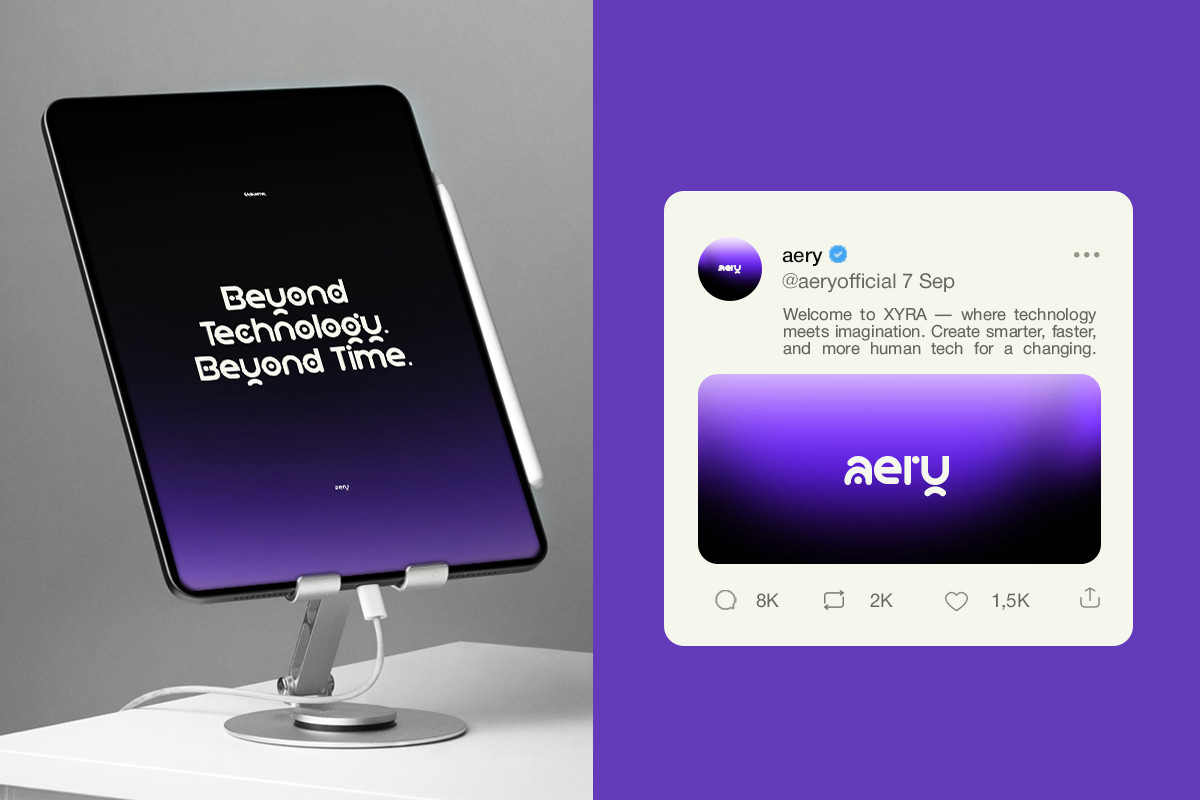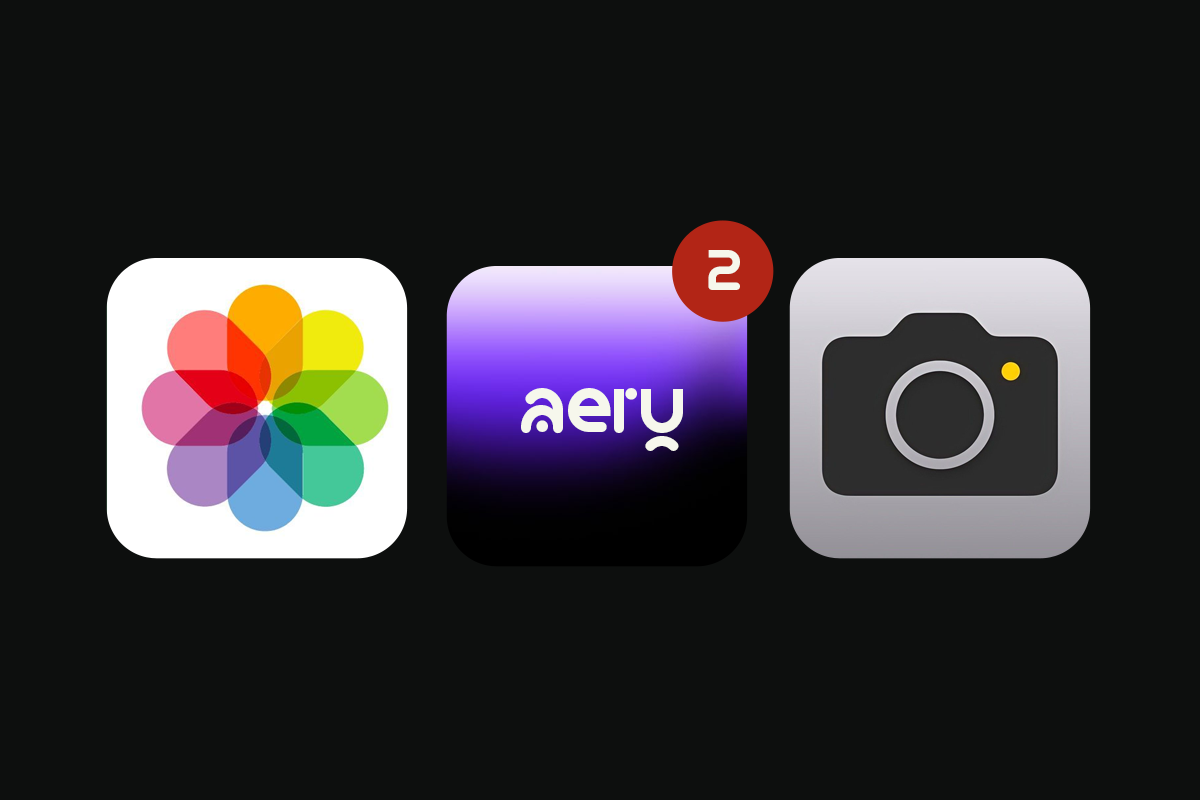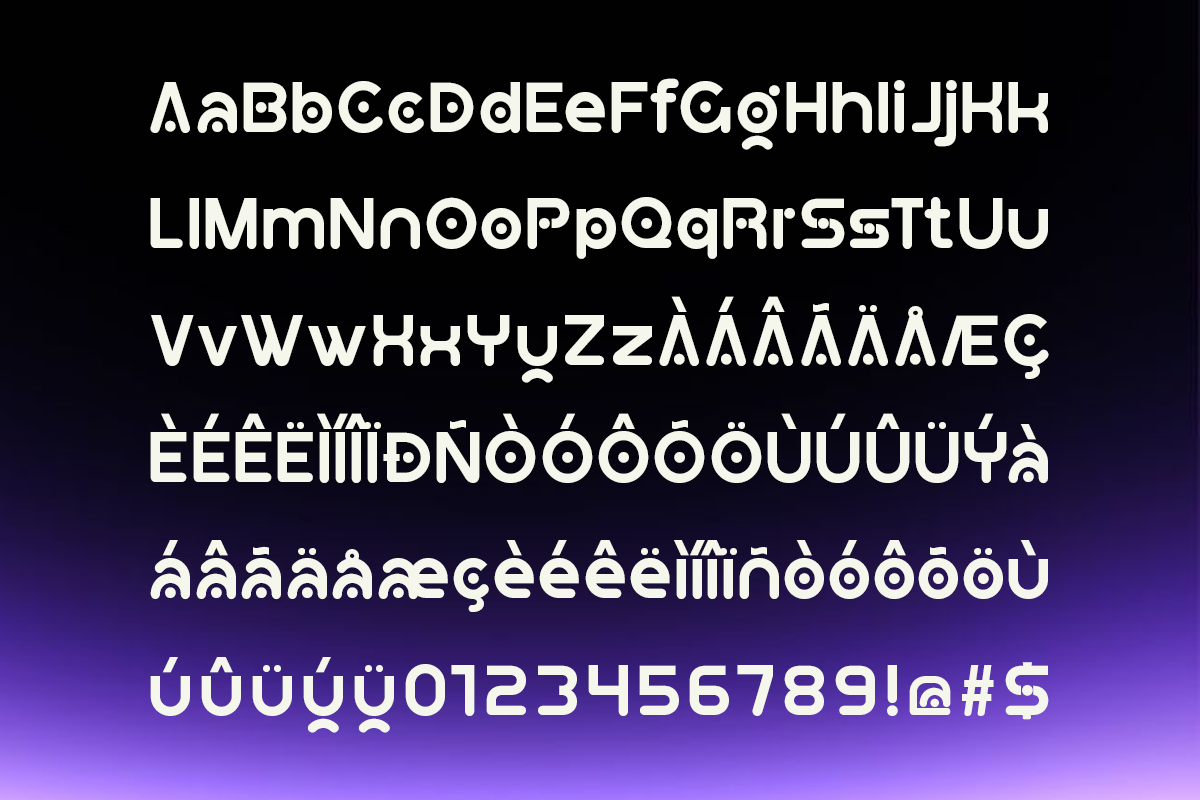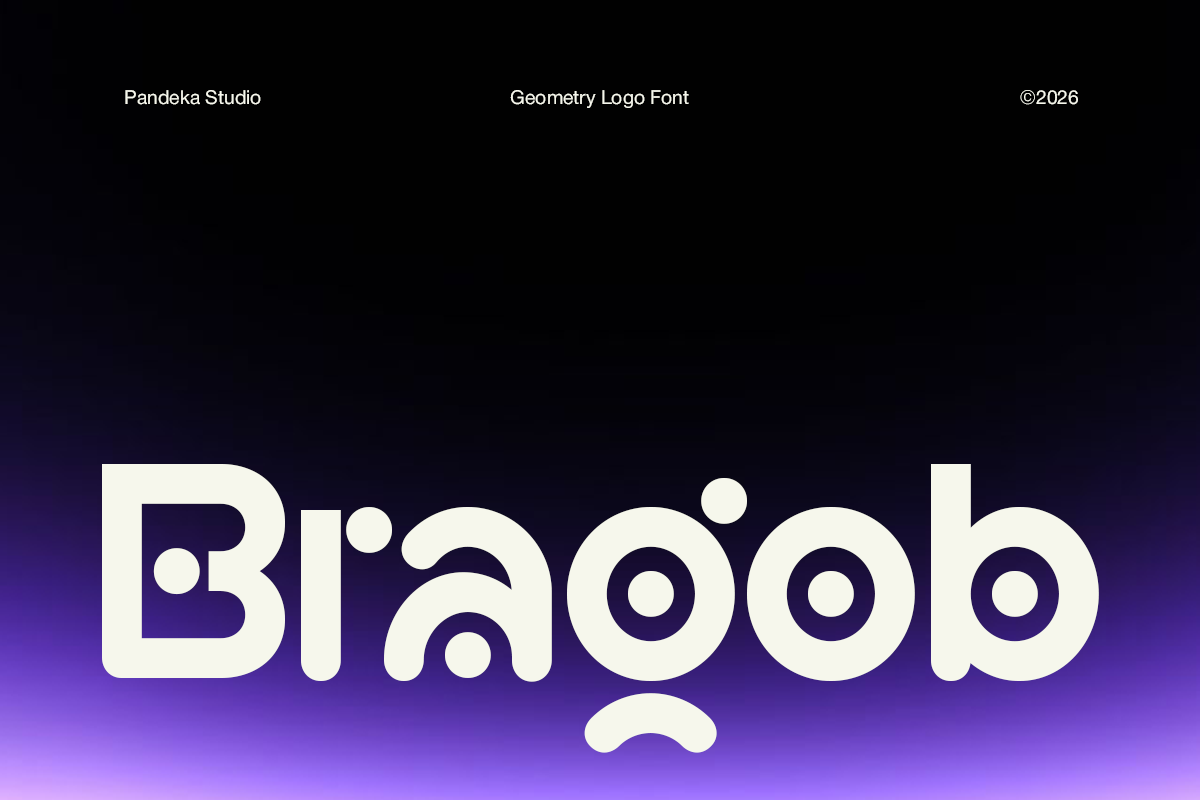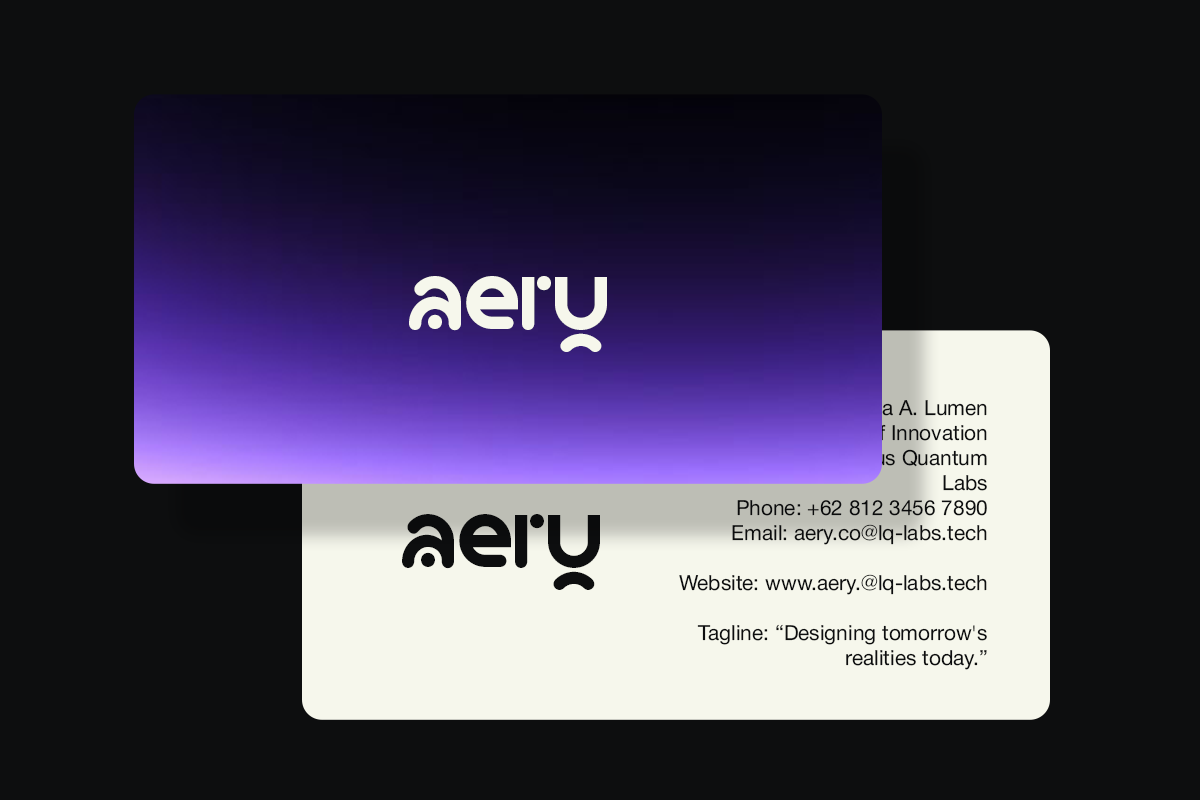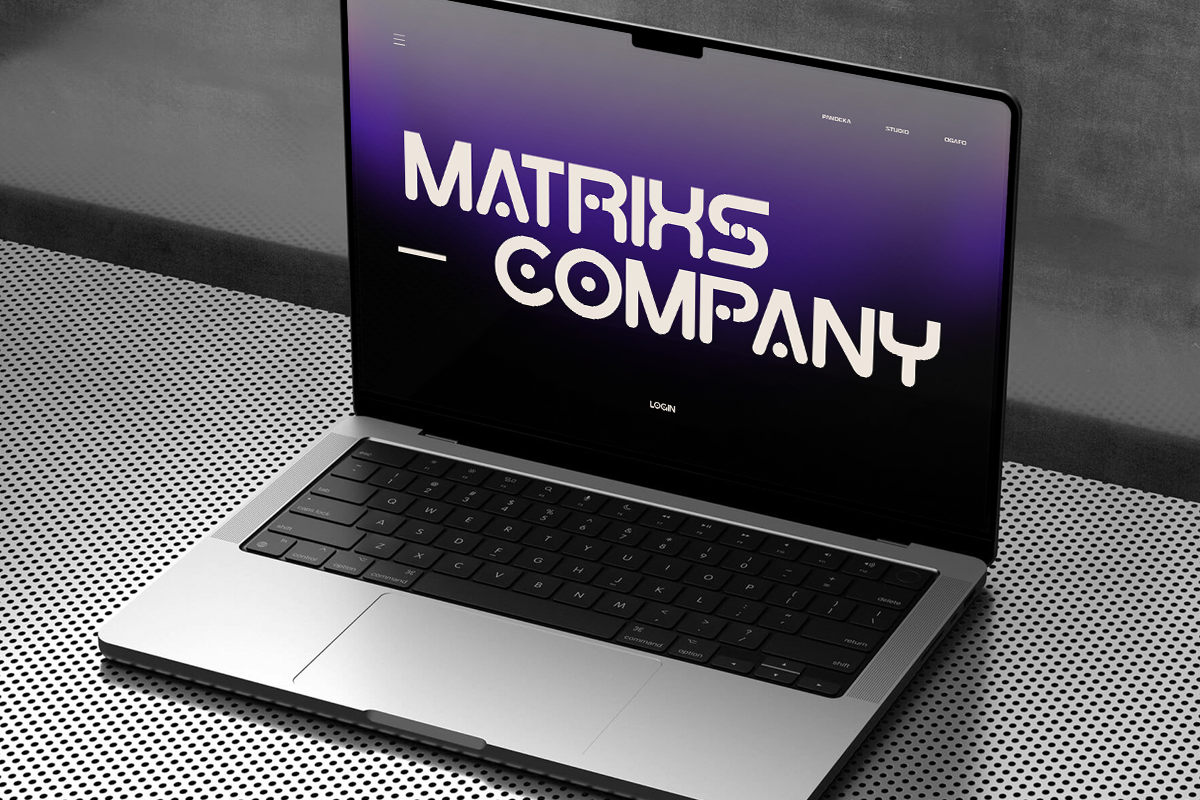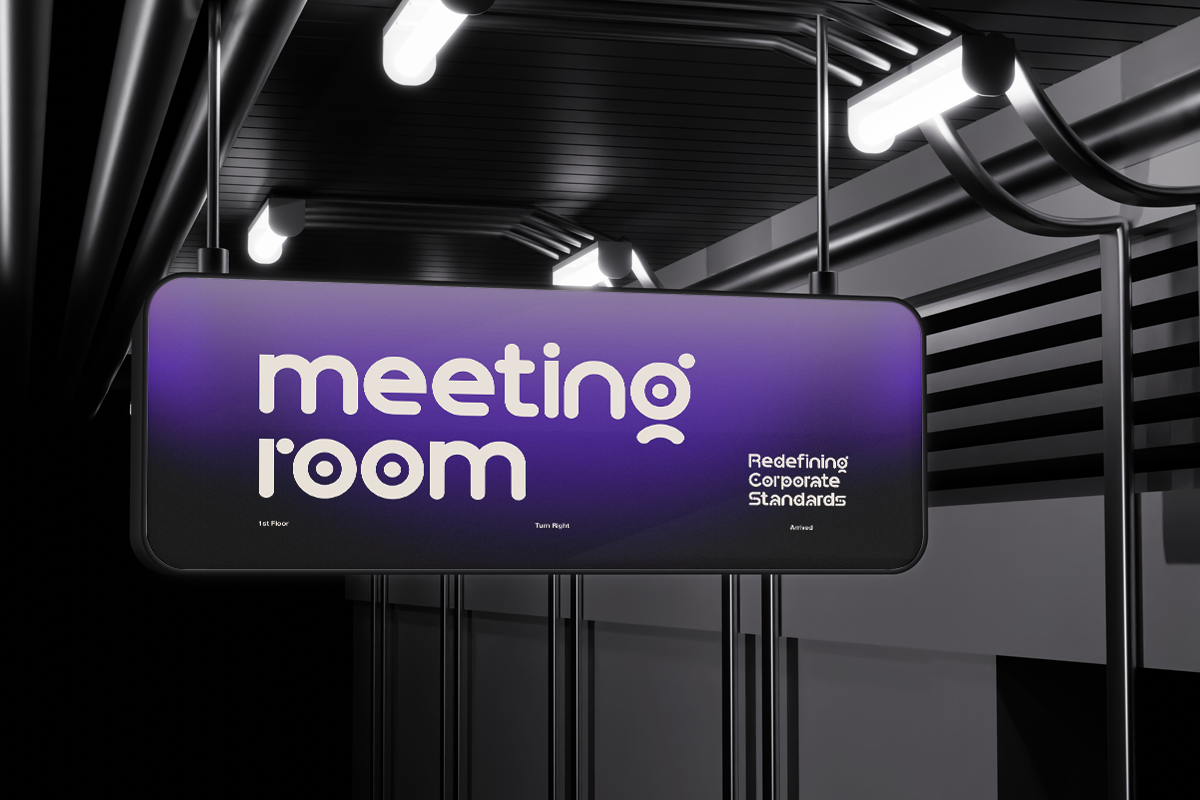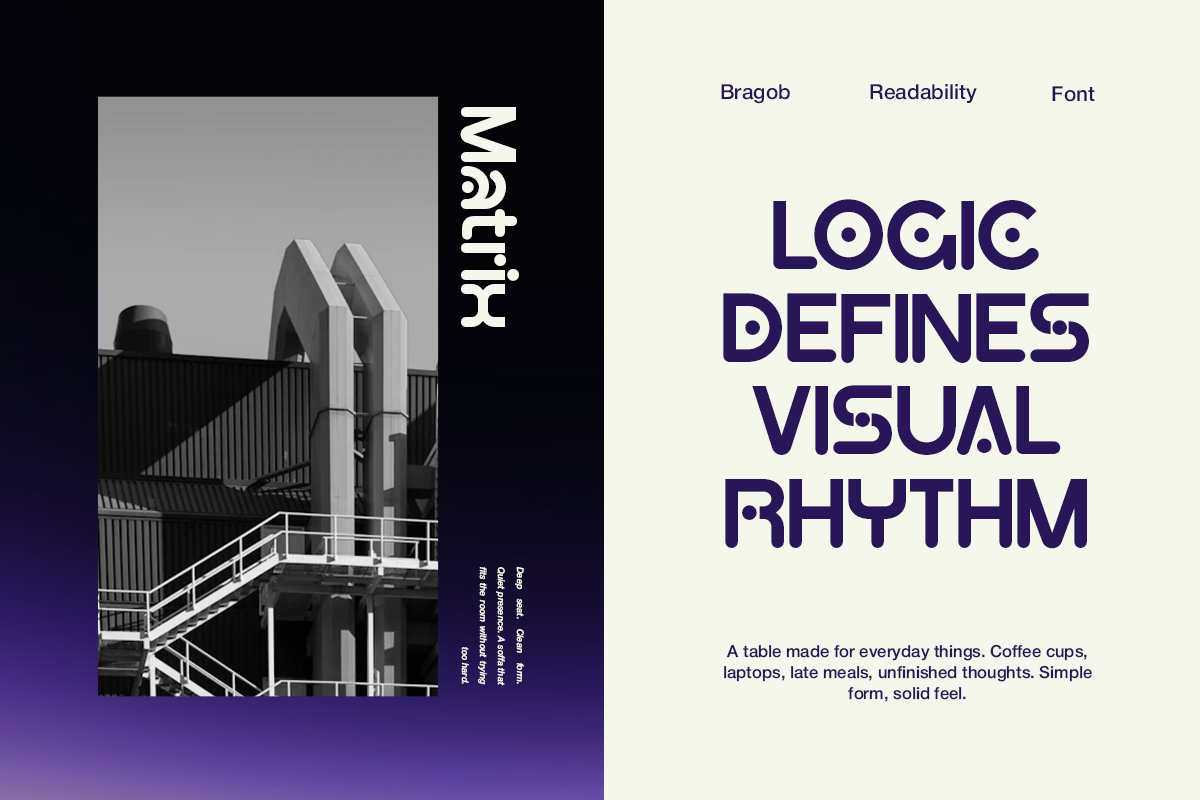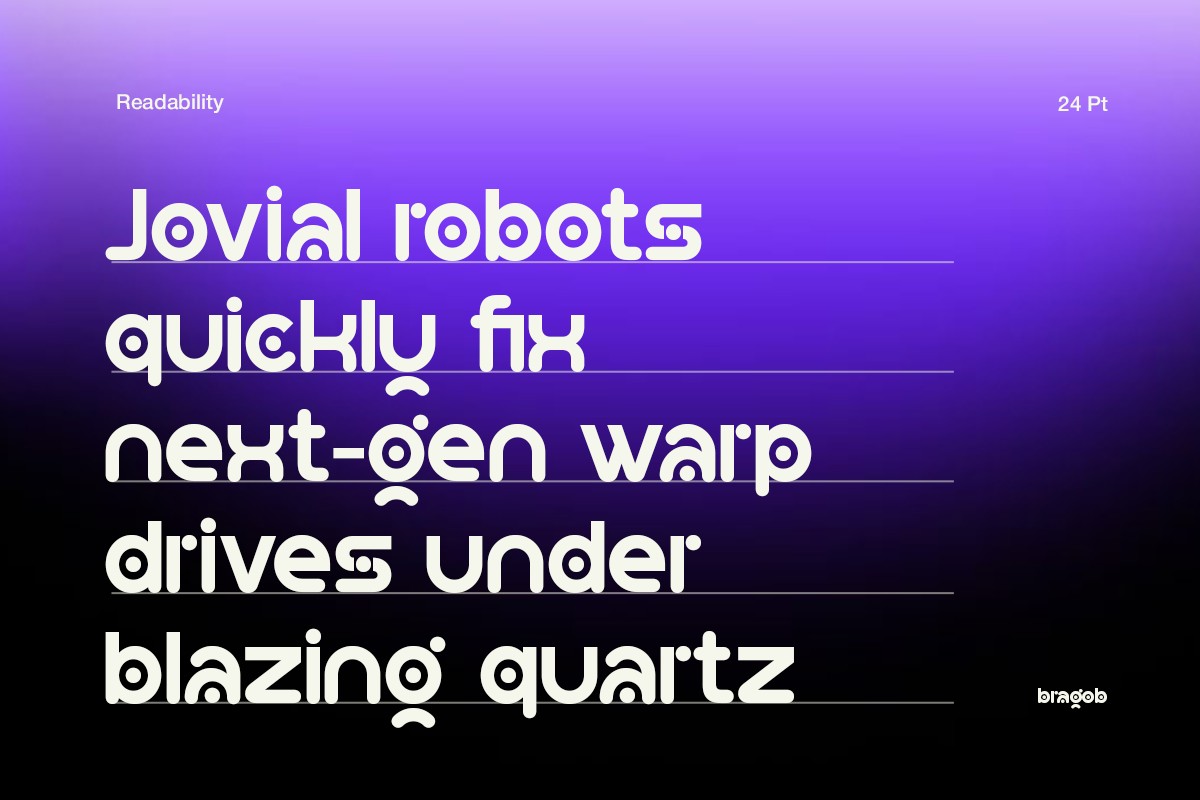
Bragob - Geometric Logo Font
Bragob is a modern geometric logo font designed to create a clean, distinctive, and memorable visual identity. Featuring rounded geometric letterforms, balanced proportions, and unique details, it brings a contemporary and friendly character to logos, branding, and digital-focused designs.
Available in 1 style: Regular, Bragob is suitable for logo design, tech branding, startup identities, app branding, social media graphics, website headers, product packaging, signage, posters, business cards, and modern brand identities. Its geometric construction gives it a versatile look that works especially well for technology, creative, digital, and contemporary businesses.